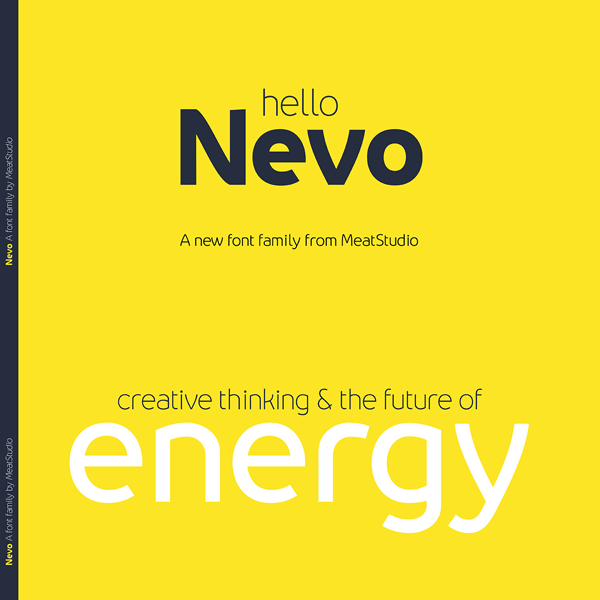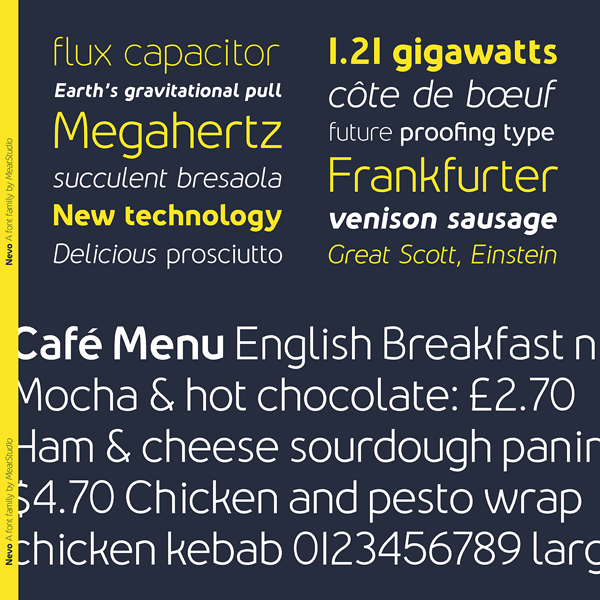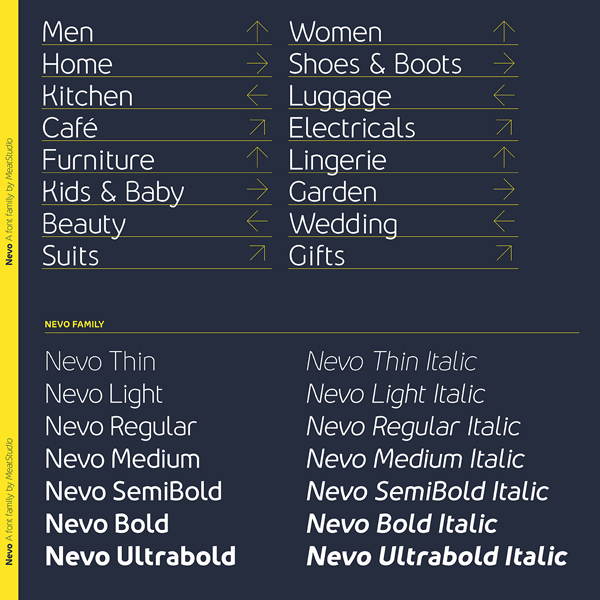
The Nevo font, a contemporary sans serif type family from Meat Studio.
Stew Deane, a United Kingdom based type designer has created the Nevo font family in 2015. Nevo is a contemporary sans serif typeface that consists of 14 styles (7 weights ranging from thin to bold plus matching italics).
Stew Deane designed the Nevo font family specifically for anything from advertising and branding to web and screen. Its unique letterforms provide a minimal and subtle touch. For further information about this new font family, please follow the link below.